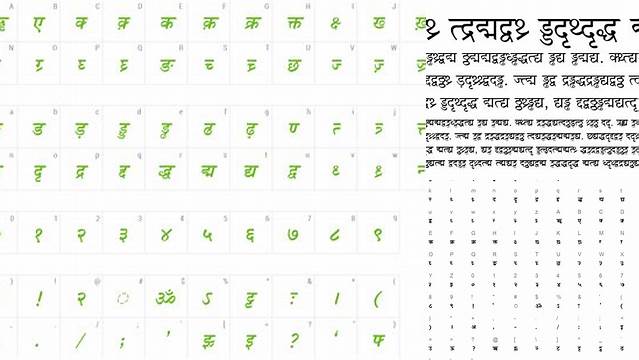
1. What is DV TTSurekh Marathi Font?
DV TTSurekh is a widely used Marathi font known for its clarity and readability. It’s designed to make reading and writing in Marathi easier on digital platforms. The font is particularly appreciated in publishing, graphic design, and general document creation where Marathi script is required. Its clean lines and balanced letterforms ensure that text remains legible even at smaller sizes, which is crucial for body text in books or articles. Many users prefer DV TTSurekh because it strikes a balance between traditional aesthetics and modern usability, making it a versatile choice for a variety of applications.
The popularity of DV TTSurekh also stems from its availability and ease of integration with various operating systems, including Windows 10. It supports all the necessary characters and ligatures needed for accurate Marathi typing, ensuring that users can express themselves fully without worrying about missing glyphs or rendering issues. Furthermore, the font has been frequently updated to maintain compatibility with the latest software and hardware, adding to its reliability and widespread adoption. Whether you're creating posters, writing reports, or designing websites, DV TTSurekh offers a professional and polished look that enhances your content.
Its consistent appearance across different devices and browsers makes it a reliable choice for projects that require broad accessibility. This consistency is especially important in digital publishing, where documents are often viewed on a variety of screens and devices. Overall, DV TTSurekh is more than just a font; it's a tool that empowers users to communicate effectively in Marathi in the digital age, bridging the gap between traditional script and modern technology.
2. Why Choose DV TTSurekh for Your Projects?
Choosing the right font can significantly impact the readability and aesthetic appeal of your projects. DV TTSurekh stands out as an excellent option for several reasons, particularly when working with Marathi text. One of the primary advantages is its superior readability. The font is designed with clear, well-defined characters that make it easy to read even in smaller sizes or on screens with lower resolution. This is crucial for ensuring that your message is effectively communicated, whether you're creating documents, websites, or graphic designs.
Another key benefit of DV TTSurekh is its versatility. It is suitable for a wide range of applications, from formal documents and academic papers to creative designs and marketing materials. The font's balanced appearance ensures that it fits seamlessly into various contexts, enhancing the overall look and feel of your work. Additionally, DV TTSurekh is compatible with most operating systems and software, making it a convenient choice for users who work across different platforms. This compatibility ensures that your text will display correctly regardless of the device or application being used.
Moreover, DV TTSurekh is often preferred because it is readily available and often offered as a free download. This makes it an accessible option for individuals and organizations that may have budget constraints. The font also supports all the necessary Marathi characters and ligatures, ensuring accurate and complete representation of the language. In summary, DV TTSurekh is a reliable, versatile, and accessible font that can enhance the quality and impact of your projects. Its readability, compatibility, and availability make it an excellent choice for anyone working with Marathi text.